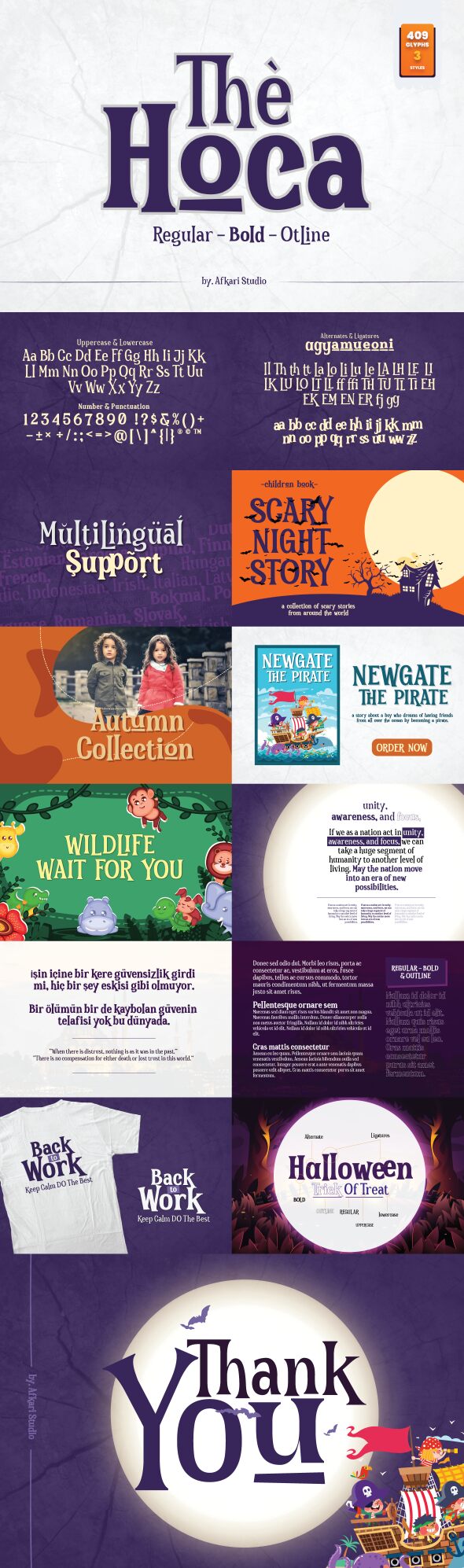
The Hoca Outline, a captivating font crafted by Afkari Studio, exudes an enchanting, Halloween-inspired aesthetic. With its distinctive outlined style, this font radiates a sense of whimsy and intrigue, inviting viewers to explore its unique character. The Hoca Outline's bold, playful strokes and striking contrast create a visually captivating typographic experience, making it a compelling choice for a wide range of design projects.
The Hoca Outline's versatility shines through, making it a compelling choice for a variety of design applications. Its haunting yet alluring appearance lends itself well to Halloween-themed projects, promotional materials, and branding initiatives that seek to capture a touch of the spooky and the extraordinary. The Hoca Outline's ability to command attention and evoke a sense of mystery makes it an excellent selection for editorial layouts, book covers, and digital media where a captivating and memorable typographic element is desired.